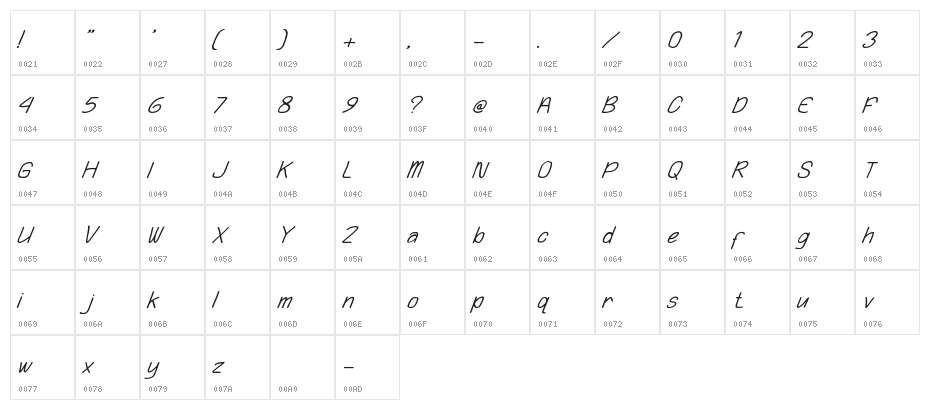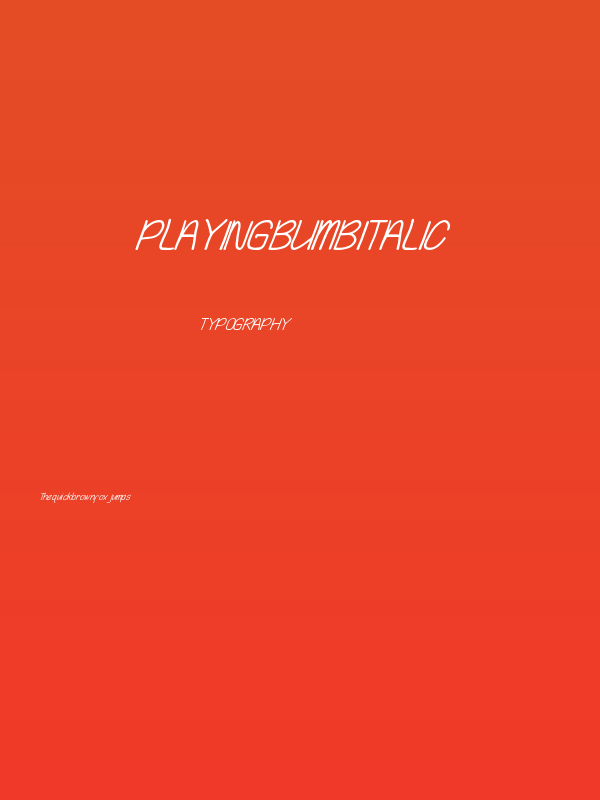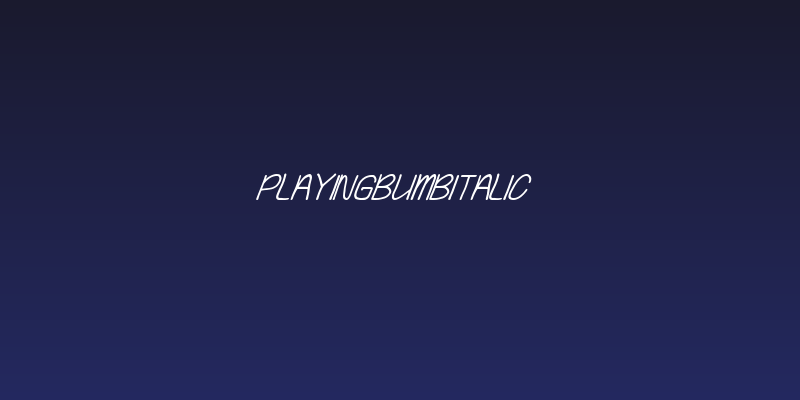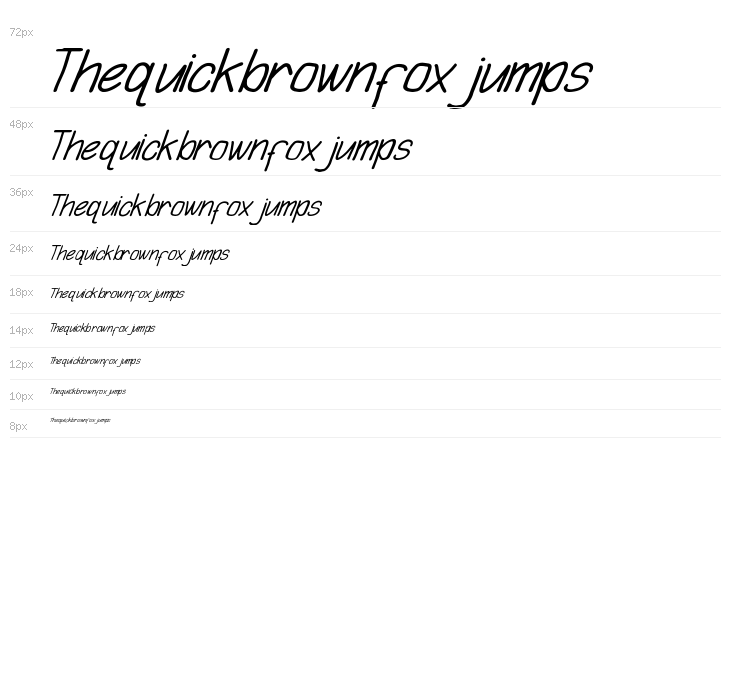
Playing Bumb Italic Font
Playing Bumb Italic Description
This font features a playful and dynamic style with a handwritten appearance. The letters are slightly slanted, giving it an italicized look, and the strokes are smooth and flowing, which adds to its casual and informal feel. The uppercase and lowercase letters maintain a consistent style, with rounded edges and a slight tilt that enhances its lively character. The numerals and special characters follow the same aesthetic, ensuring uniformity across the font. This font is well-suited for projects that require a personal touch or a sense of whimsy.
| Proposed Projects | Ideal for greeting cards, invitations, playful branding, and children's books. |